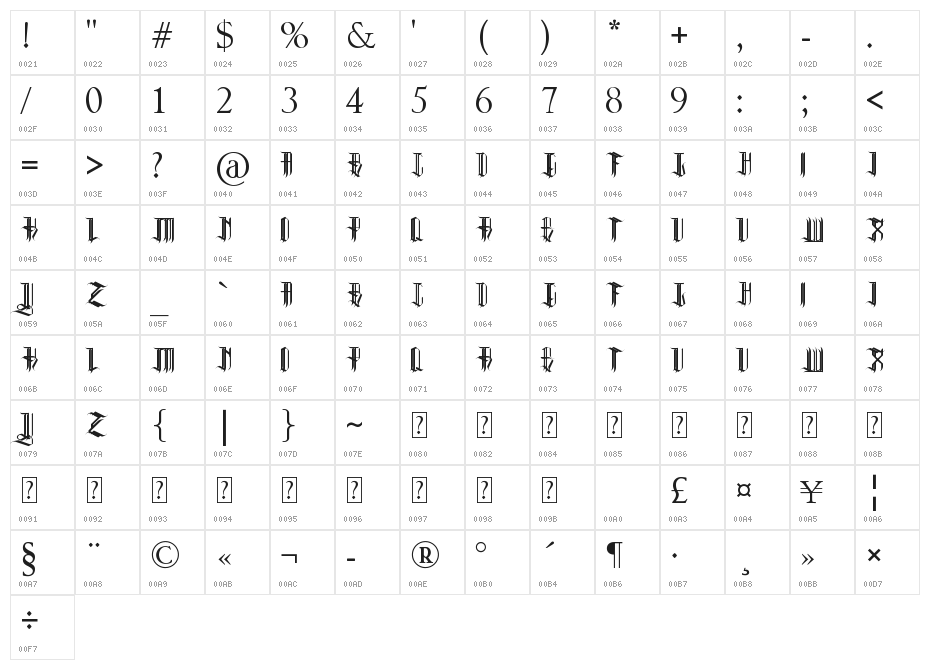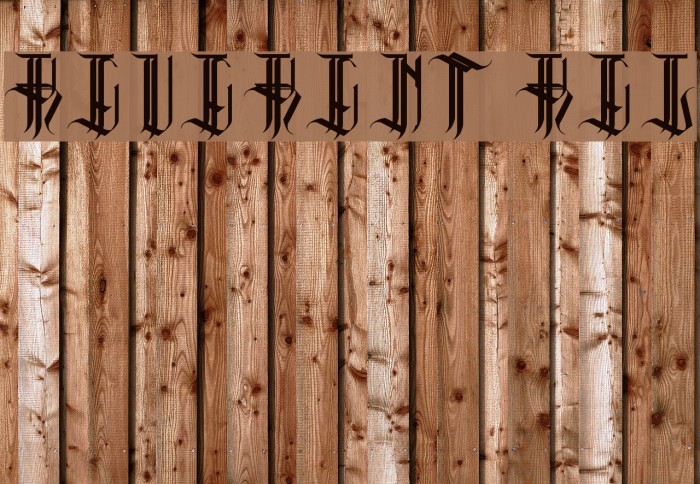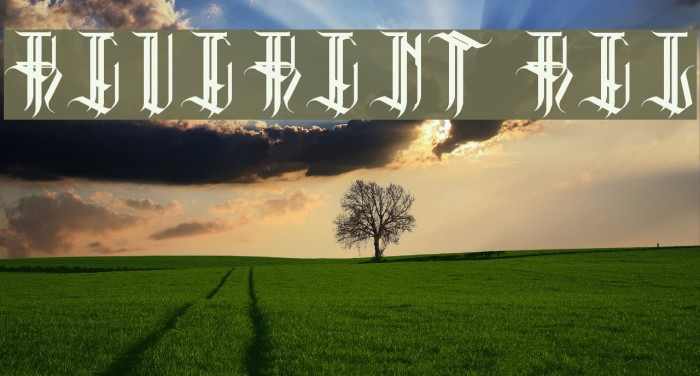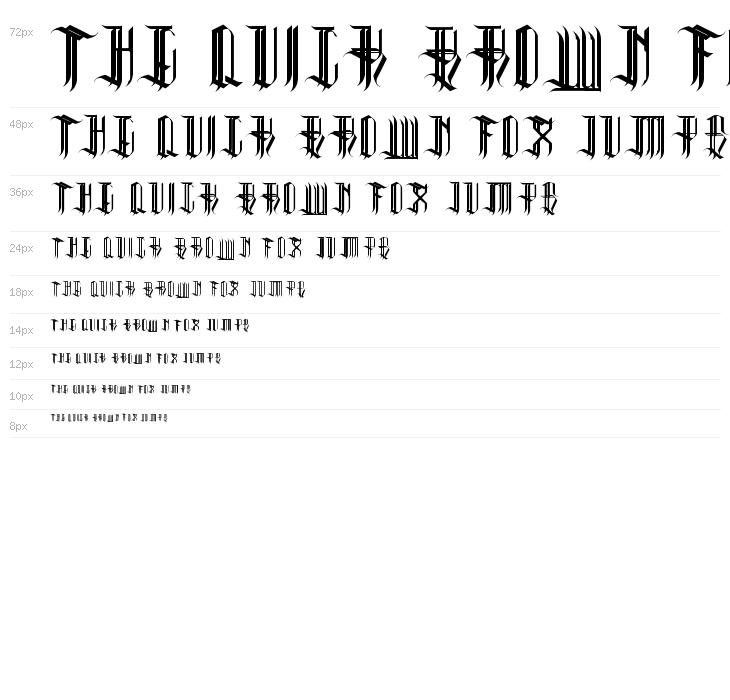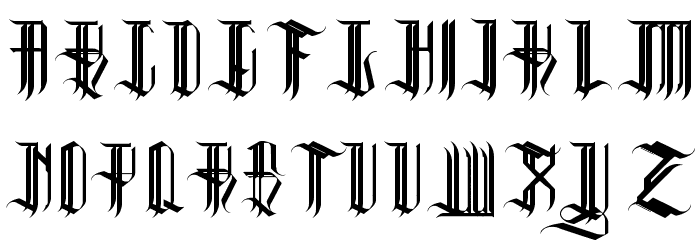
REVERENT REG Font
REVERENT REG Description
This font features a striking and intricate design, reminiscent of traditional Blackletter styles. The uppercase letters are characterized by sharp, angular lines and dramatic flourishes, giving them a bold and authoritative presence. The lowercase letters maintain a similar aesthetic, with a slightly more subdued appearance, yet still retaining the ornate detailing. The numerals are more modern and straightforward, providing a clear contrast to the elaborate letterforms. Special characters are included, matching the overall style with a mix of sharp edges and elegant curves. This font is ideal for projects that require a historical or gothic touch, such as event posters, book covers, or branding for products with a vintage or medieval theme.
| Proposed Projects | Ideal for event posters, book covers, or branding with a vintage or medieval theme. |